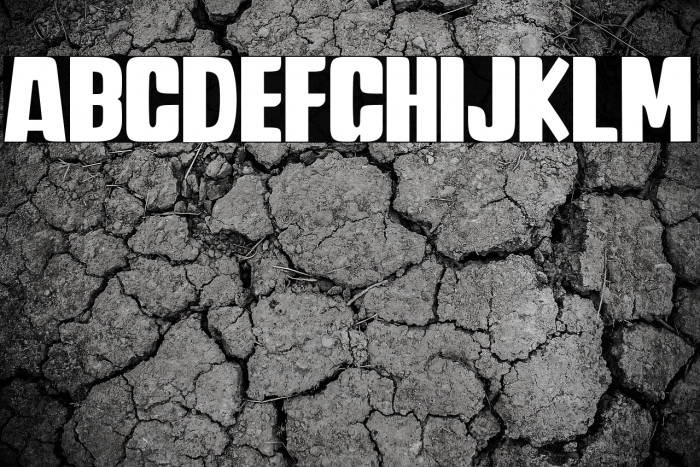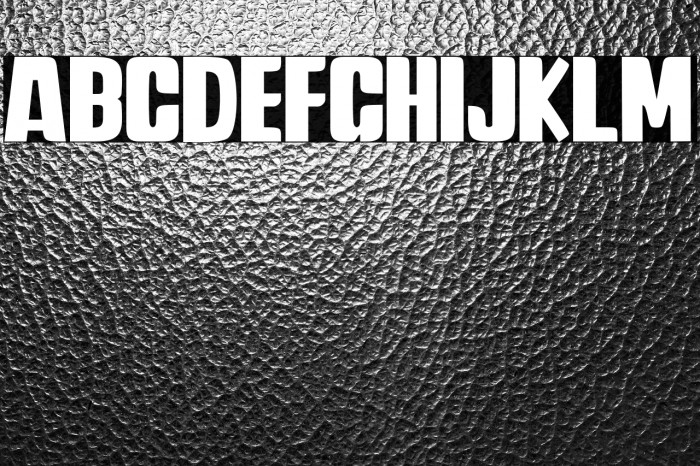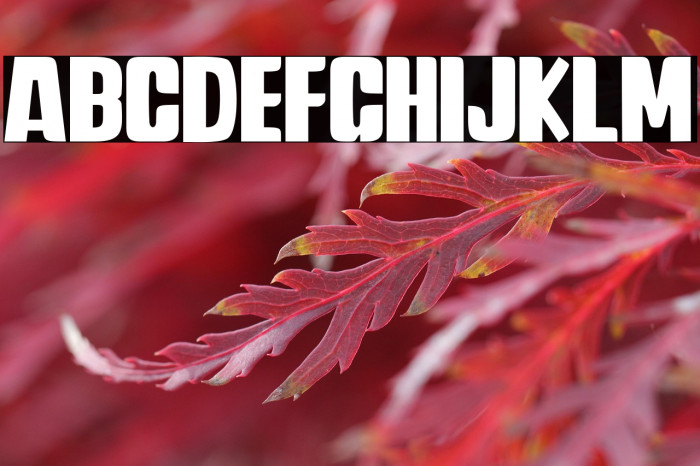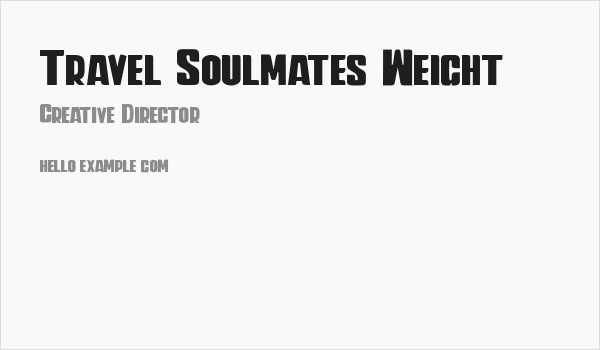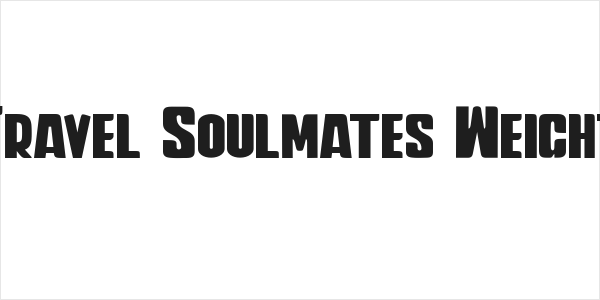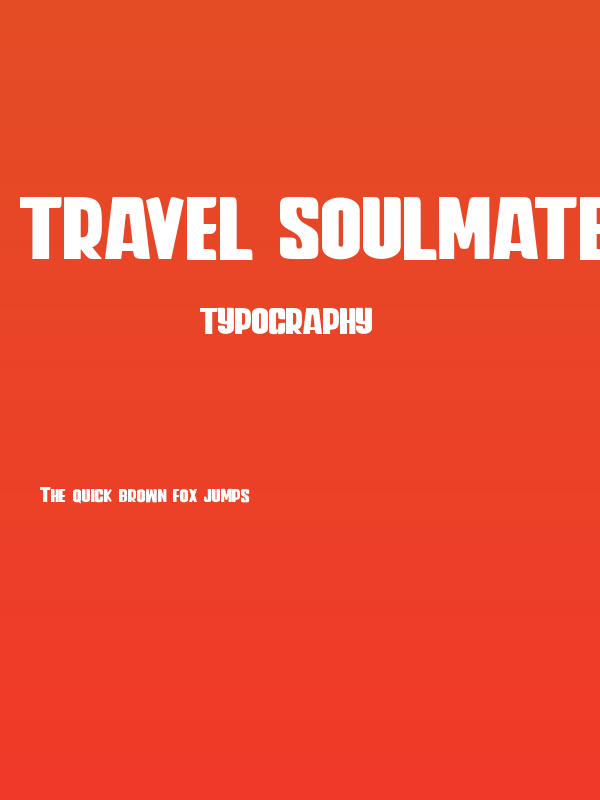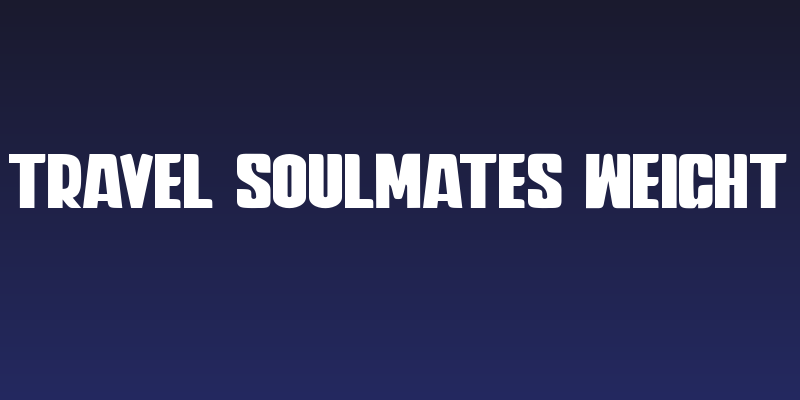
Travel Soulmates Weight Font
Travel Soulmates Weight Description
This font features a bold and impactful design with thick, uniform strokes that create a strong visual presence. The characters are blocky and geometric, with sharp angles and a consistent width throughout. The uppercase letters are particularly striking, with a modern and assertive appearance that commands attention. The overall style is reminiscent of vintage poster fonts, yet it maintains a contemporary edge that makes it suitable for various design applications. The font's boldness and clarity make it ideal for headlines and titles, where readability and impact are crucial.
| Proposed Projects | Ideal for branding, poster design, advertising, and any project requiring a strong visual impact. |